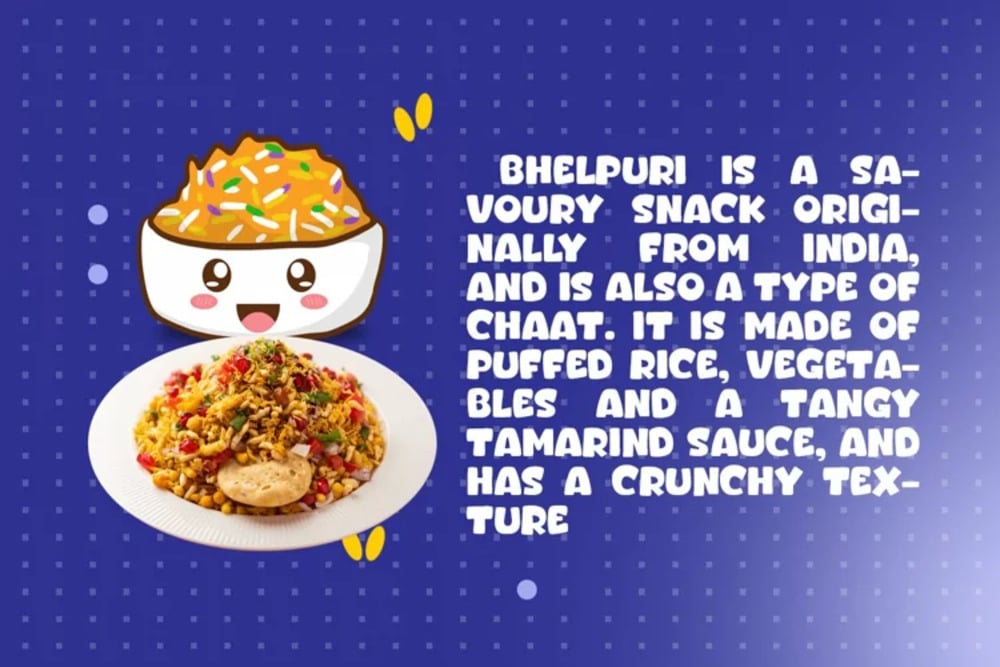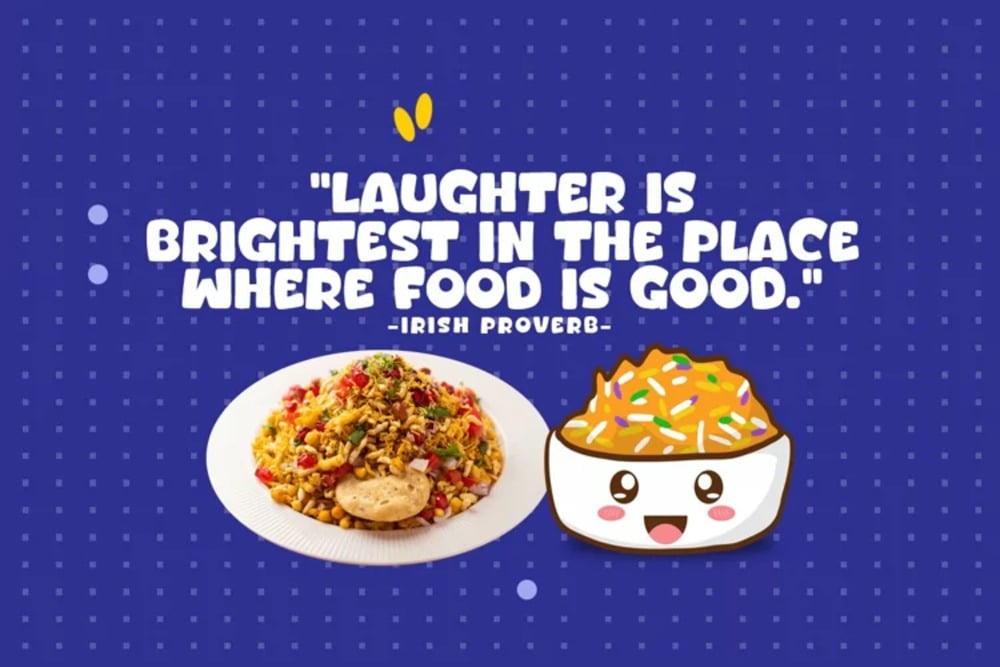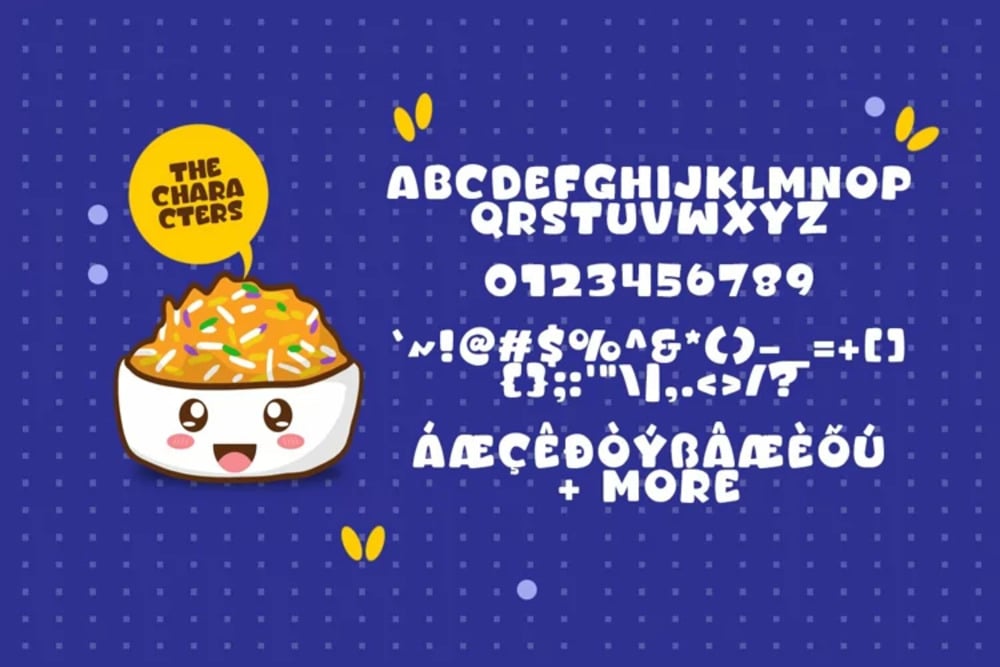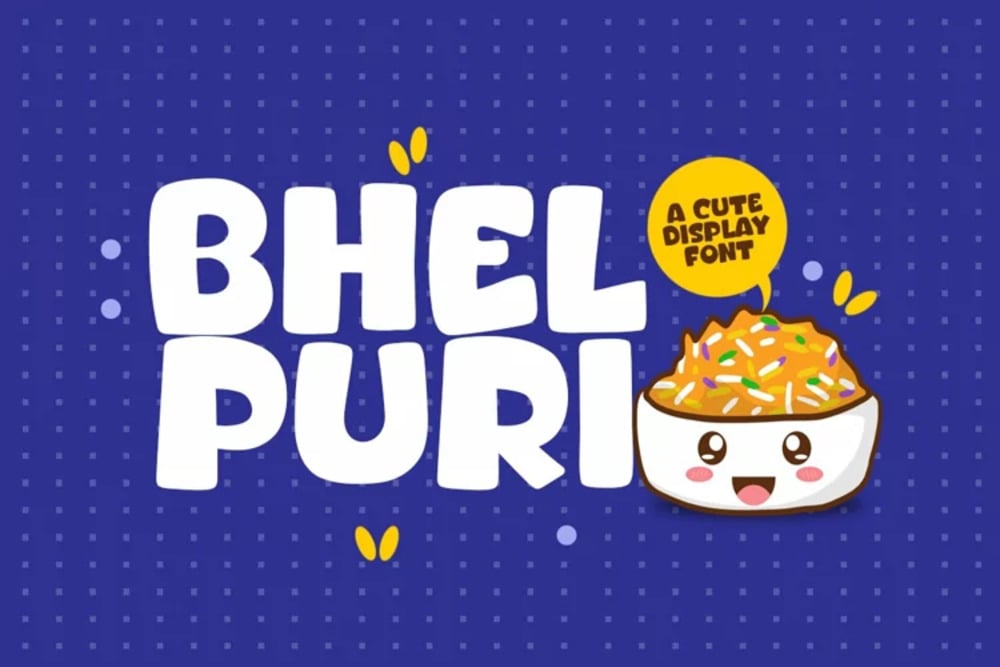
Bhel Puri Font
Bhel Puri is a playful display font with a fun and cool vibe. It’s perfect for designs that need a touch of whimsy, like cartoon-related projects, children’s games, or anything that calls for a cheerful and lighthearted look. This font adds a dash of joy and is sure to make your creations stand out with its unique charm.